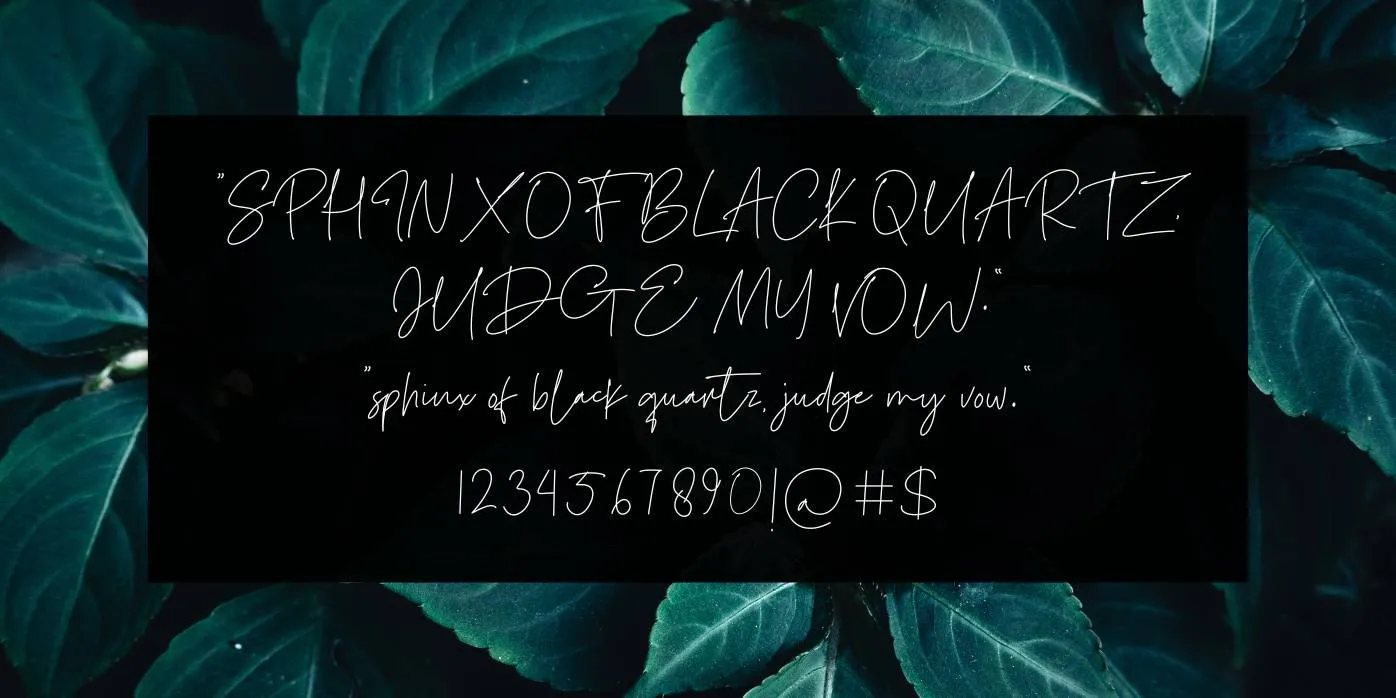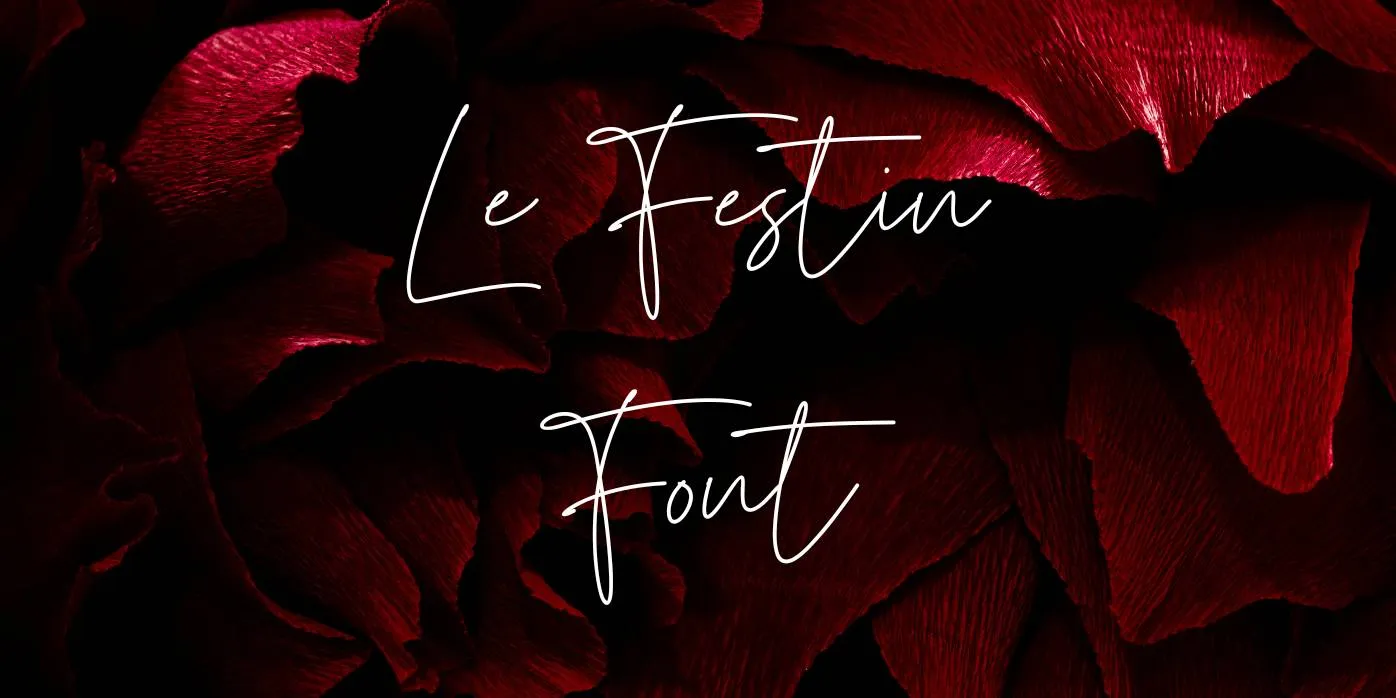
Le Festin Font
Fikryal Studio is the designer of this texture. Le Festin Font is a famous handwritten type of font. The characters of this texture are less readable and stylish and have good use in motion graphics. There are 881 amazing and stunning glyphs for this texture.  The characters of this typeface support all numbers, capital letters, small letters, and special letters except one.